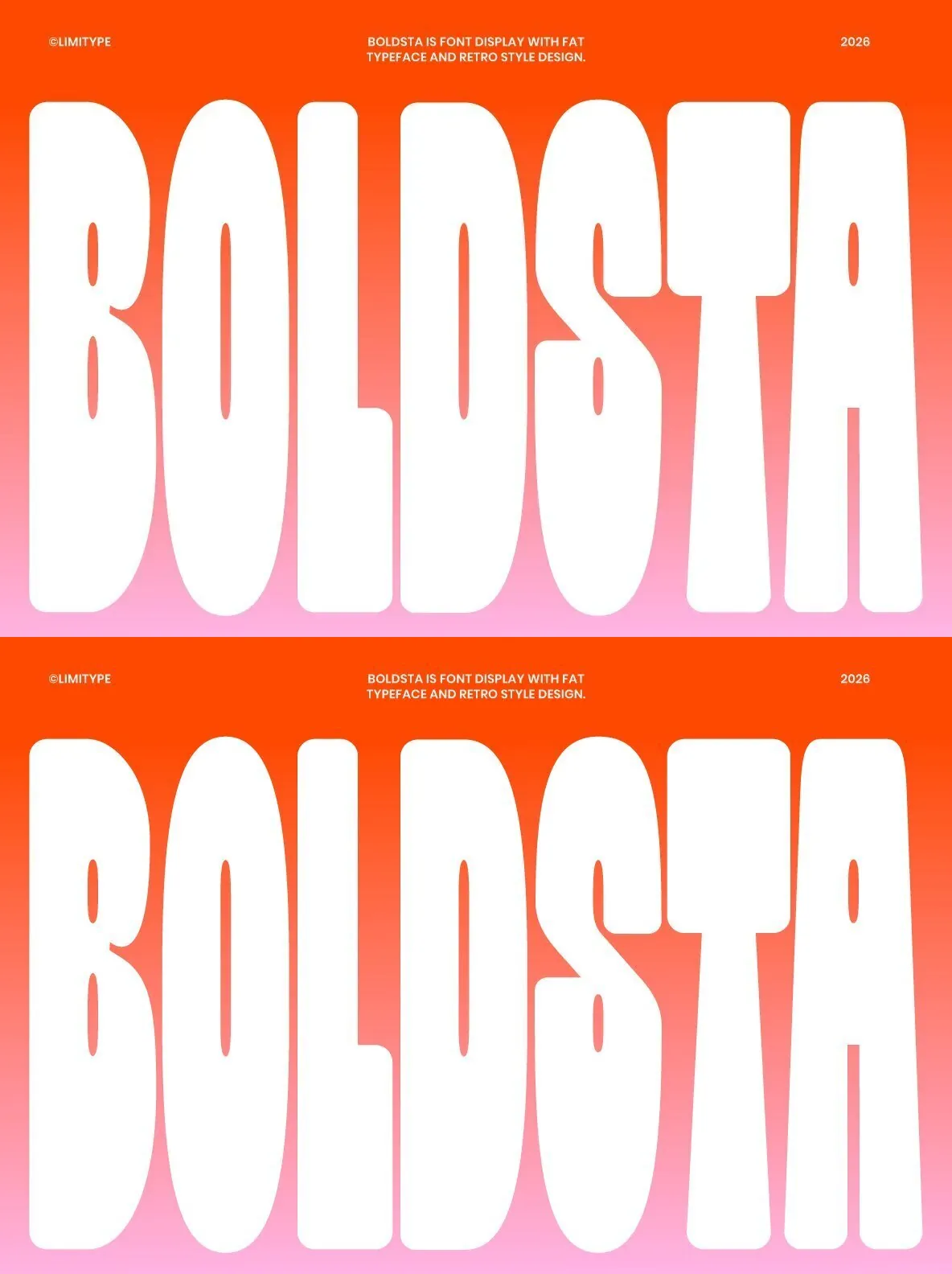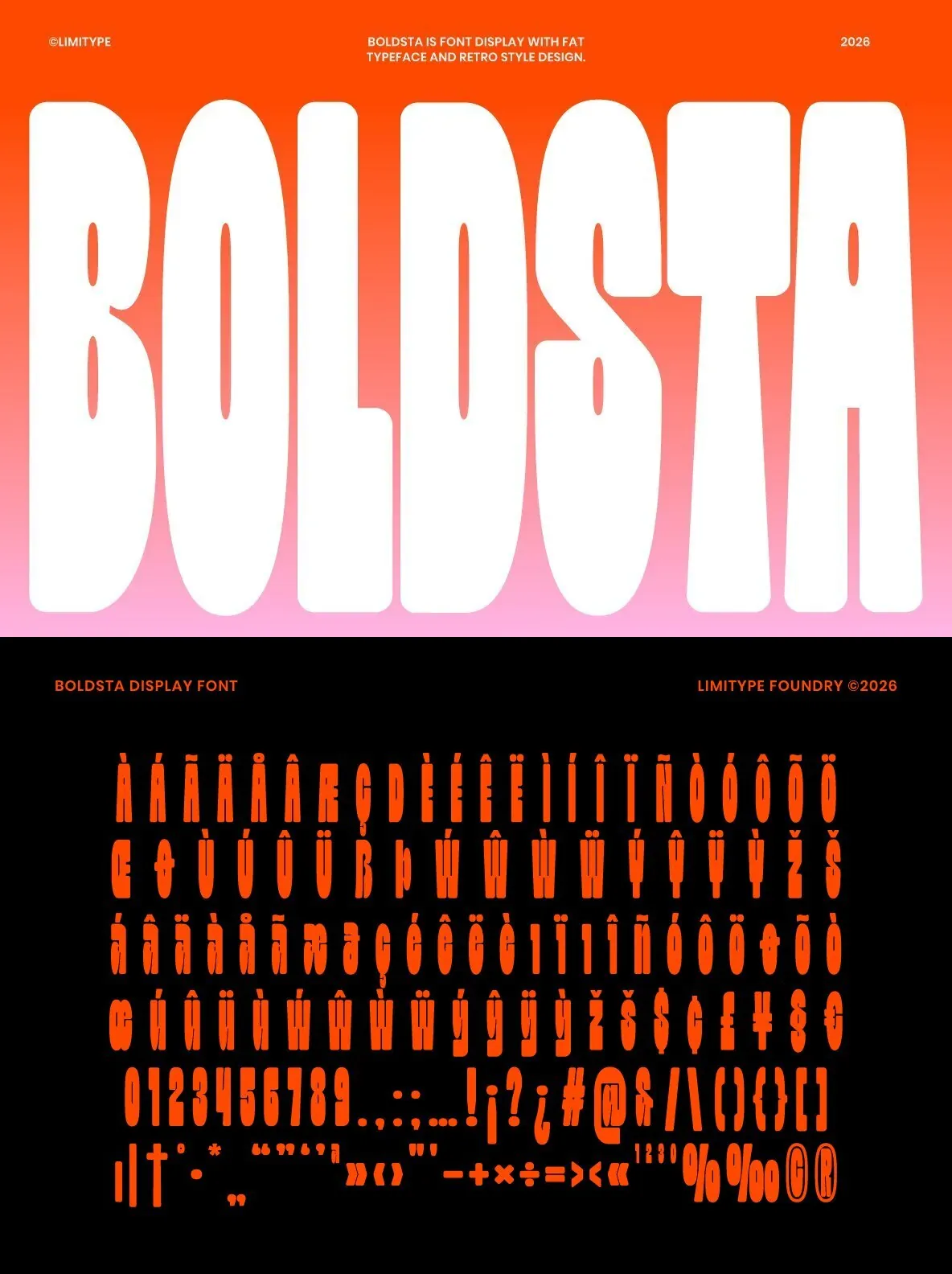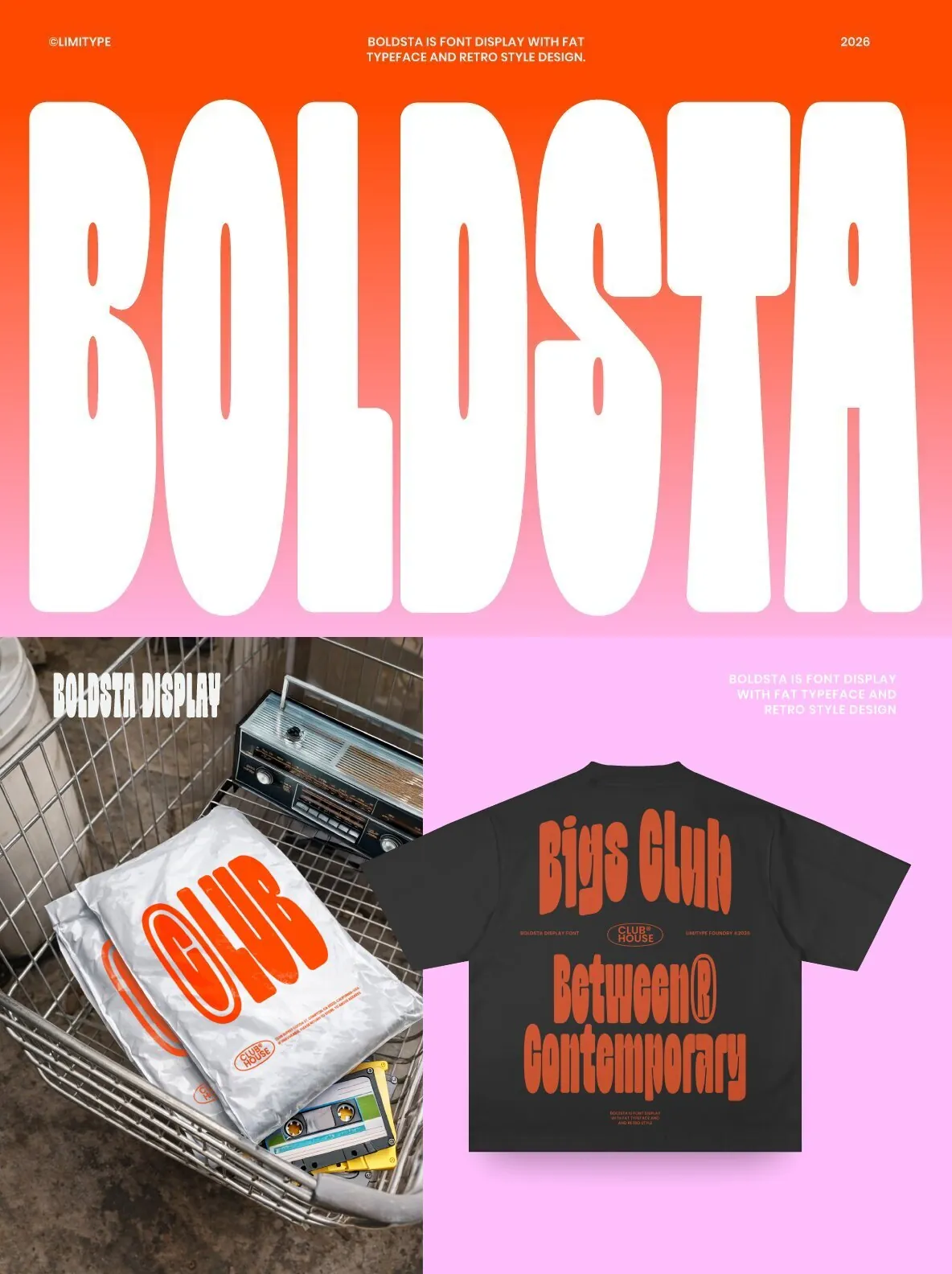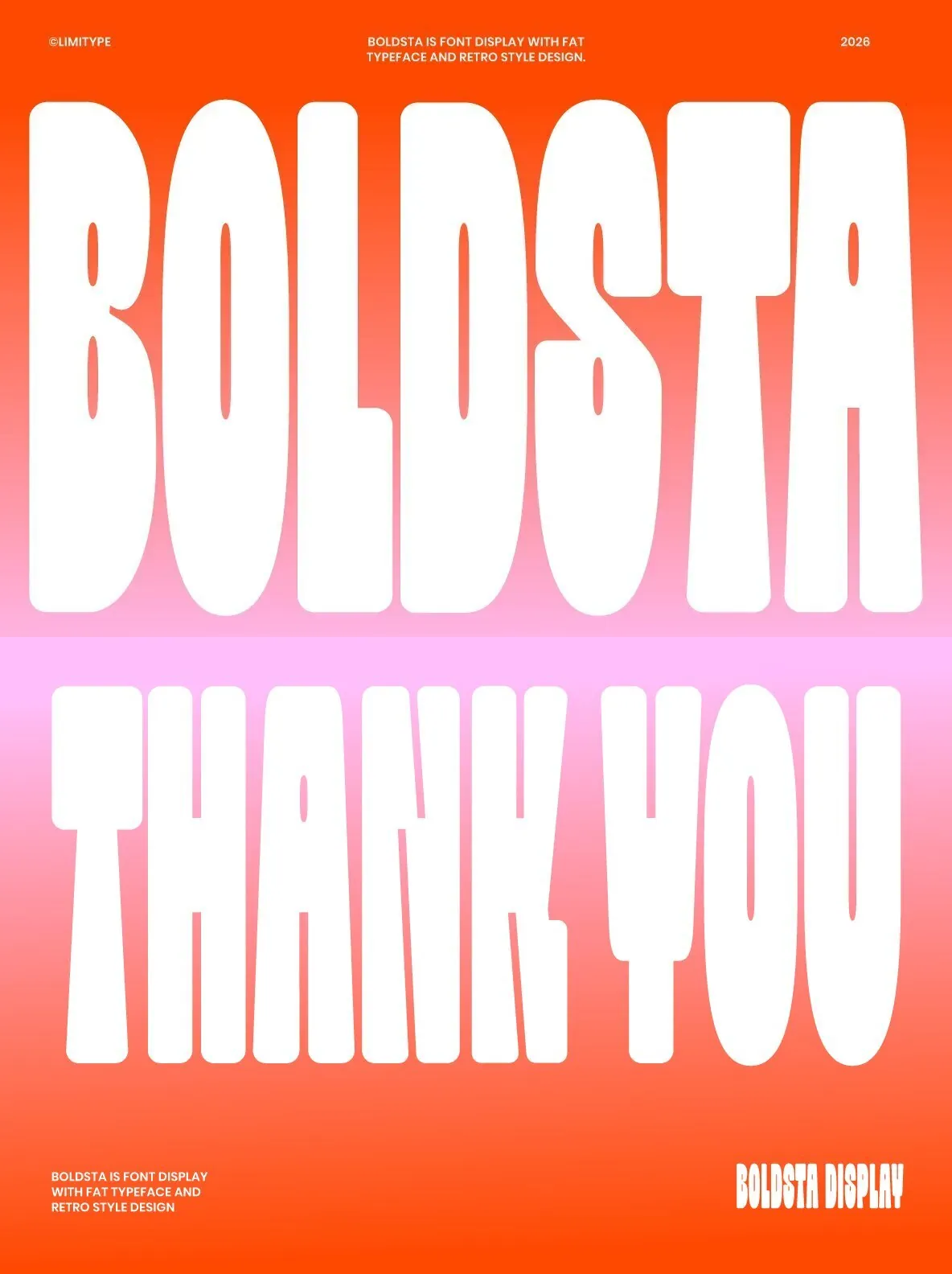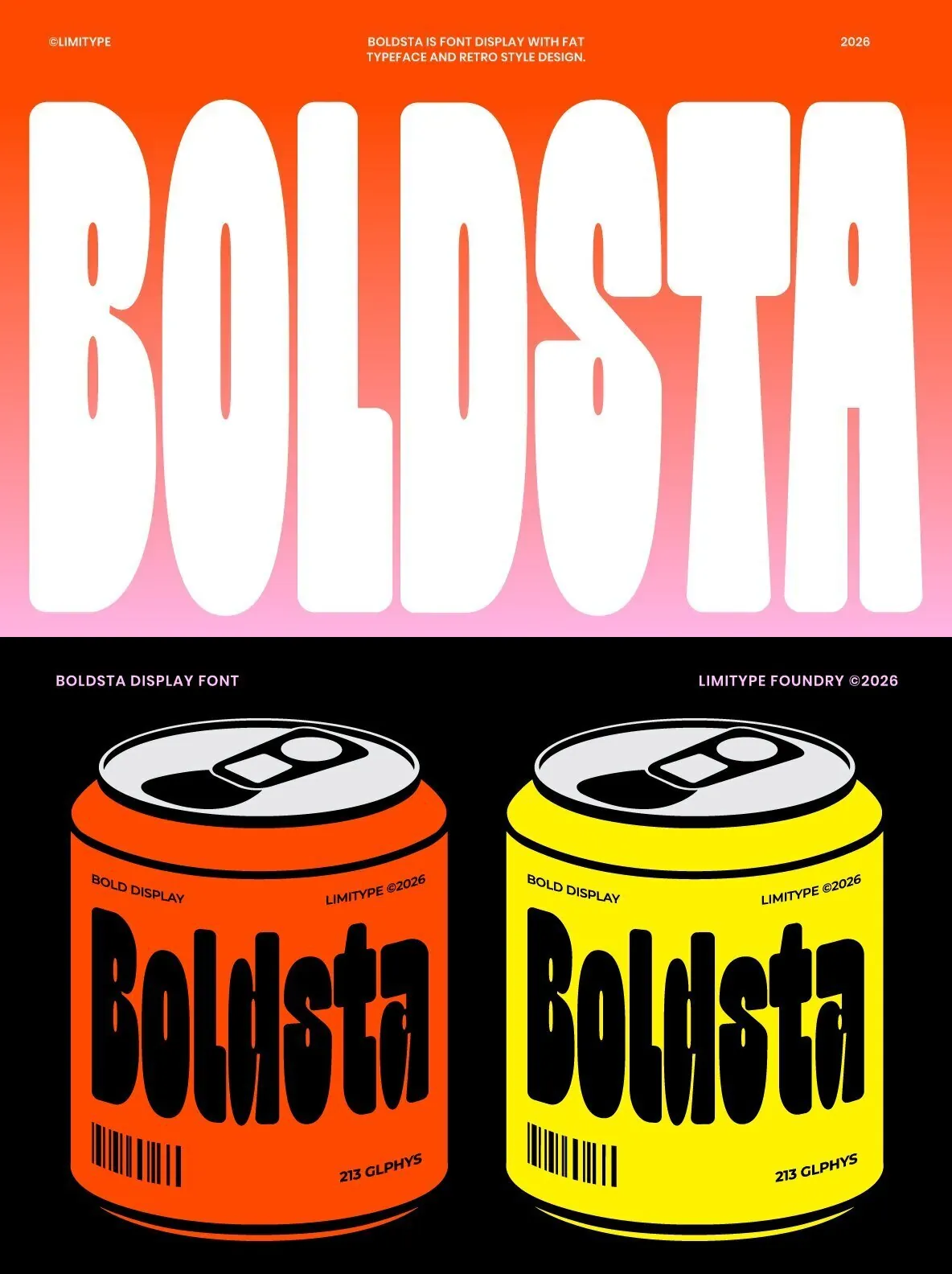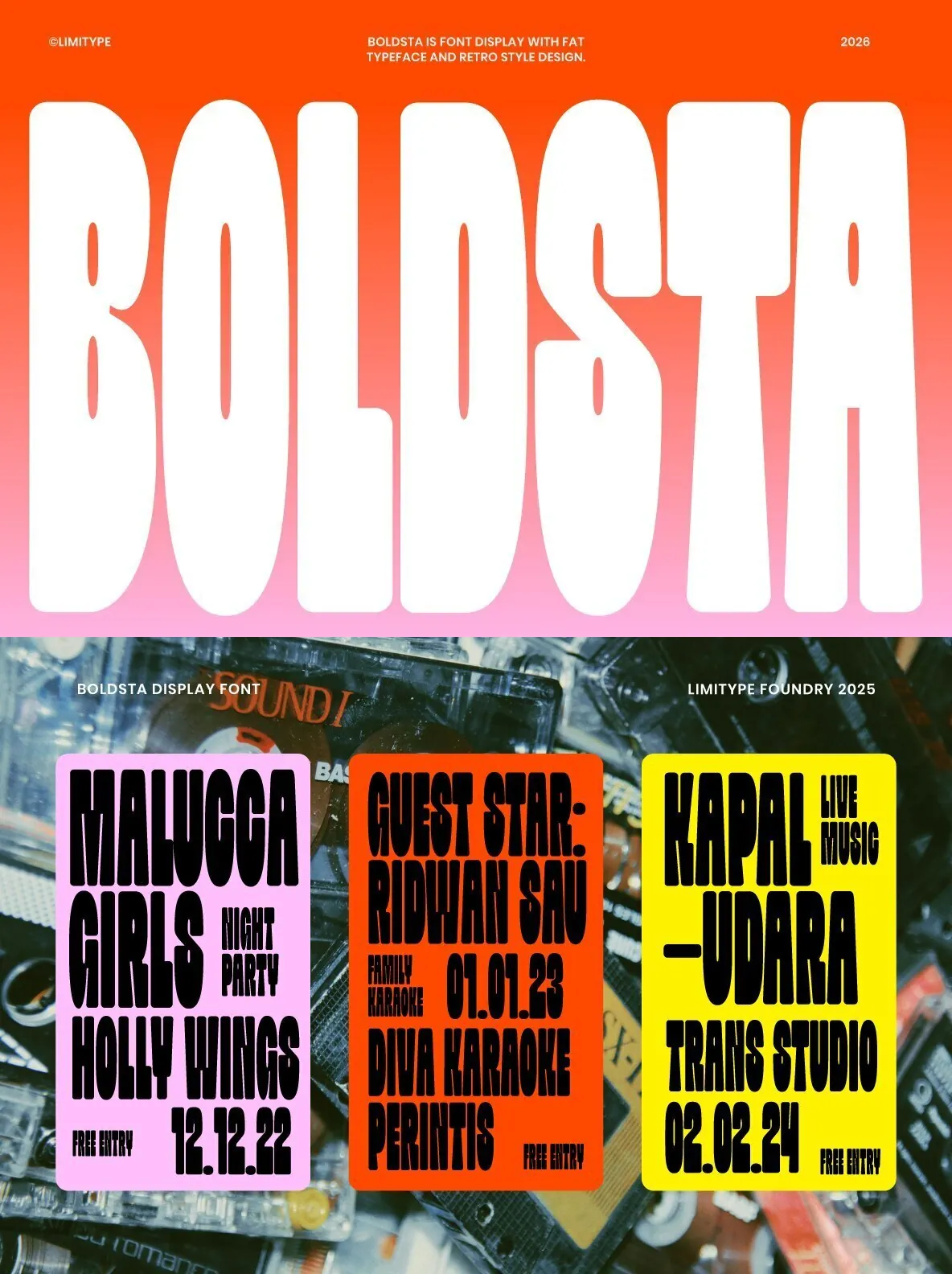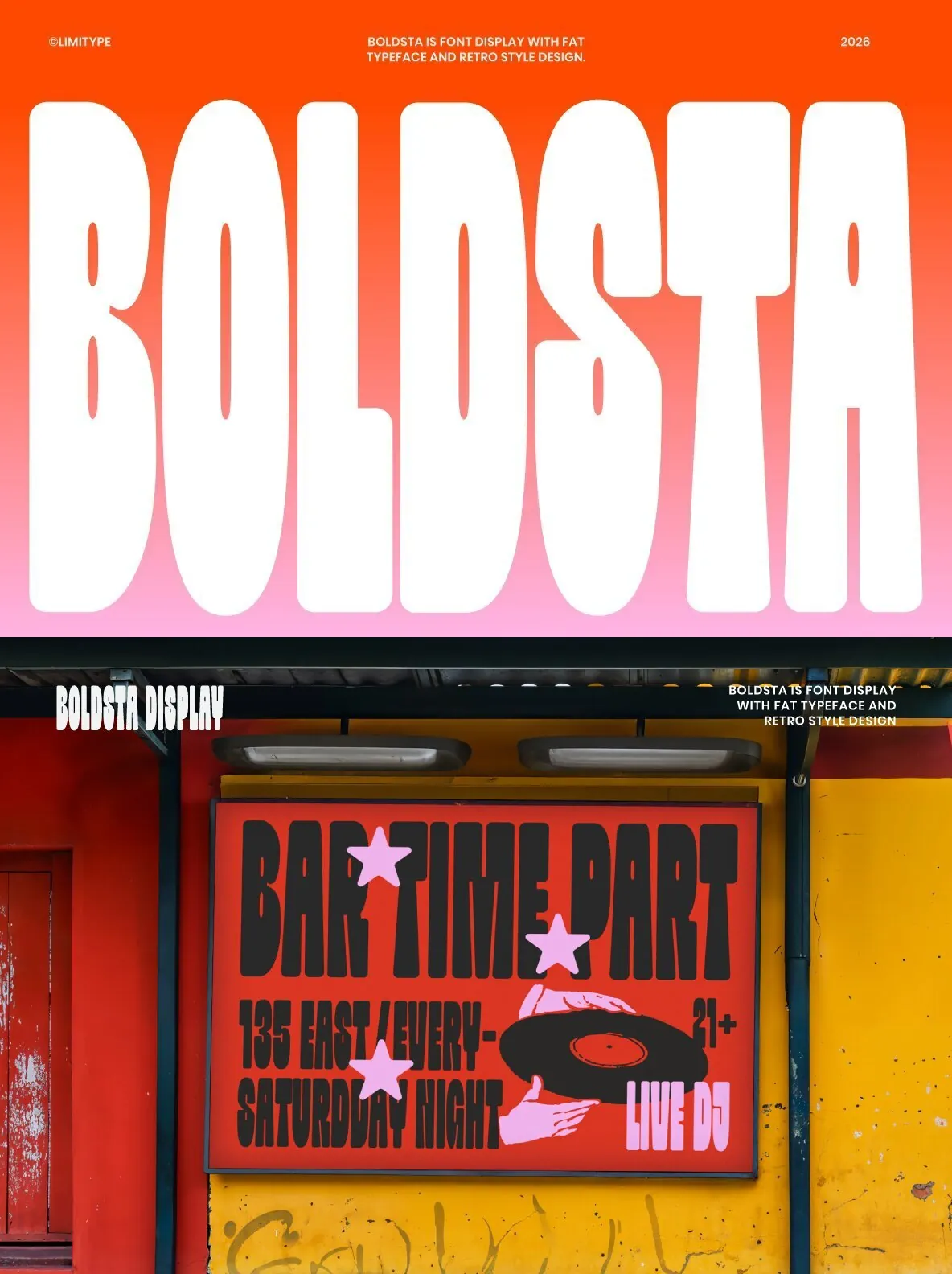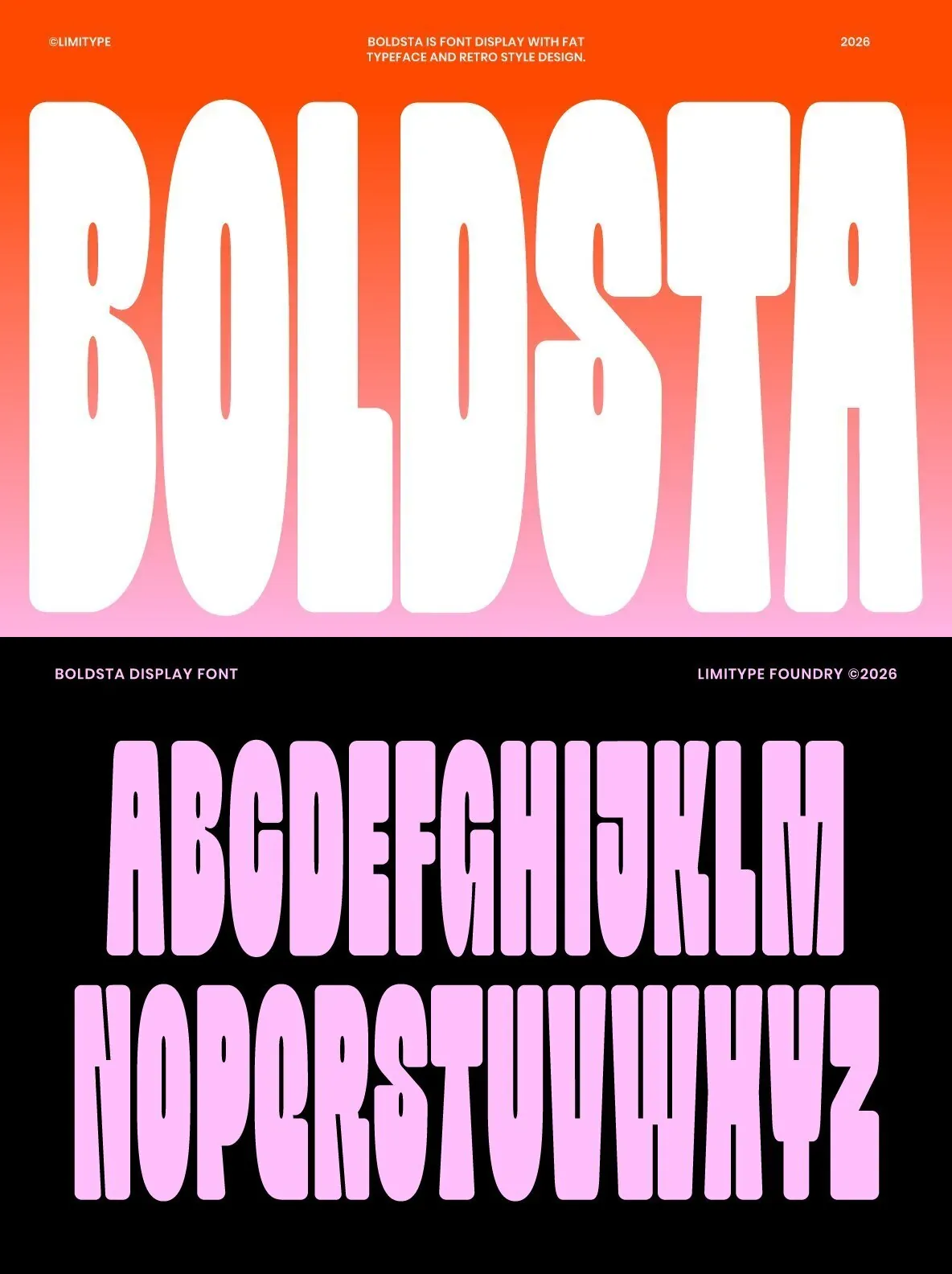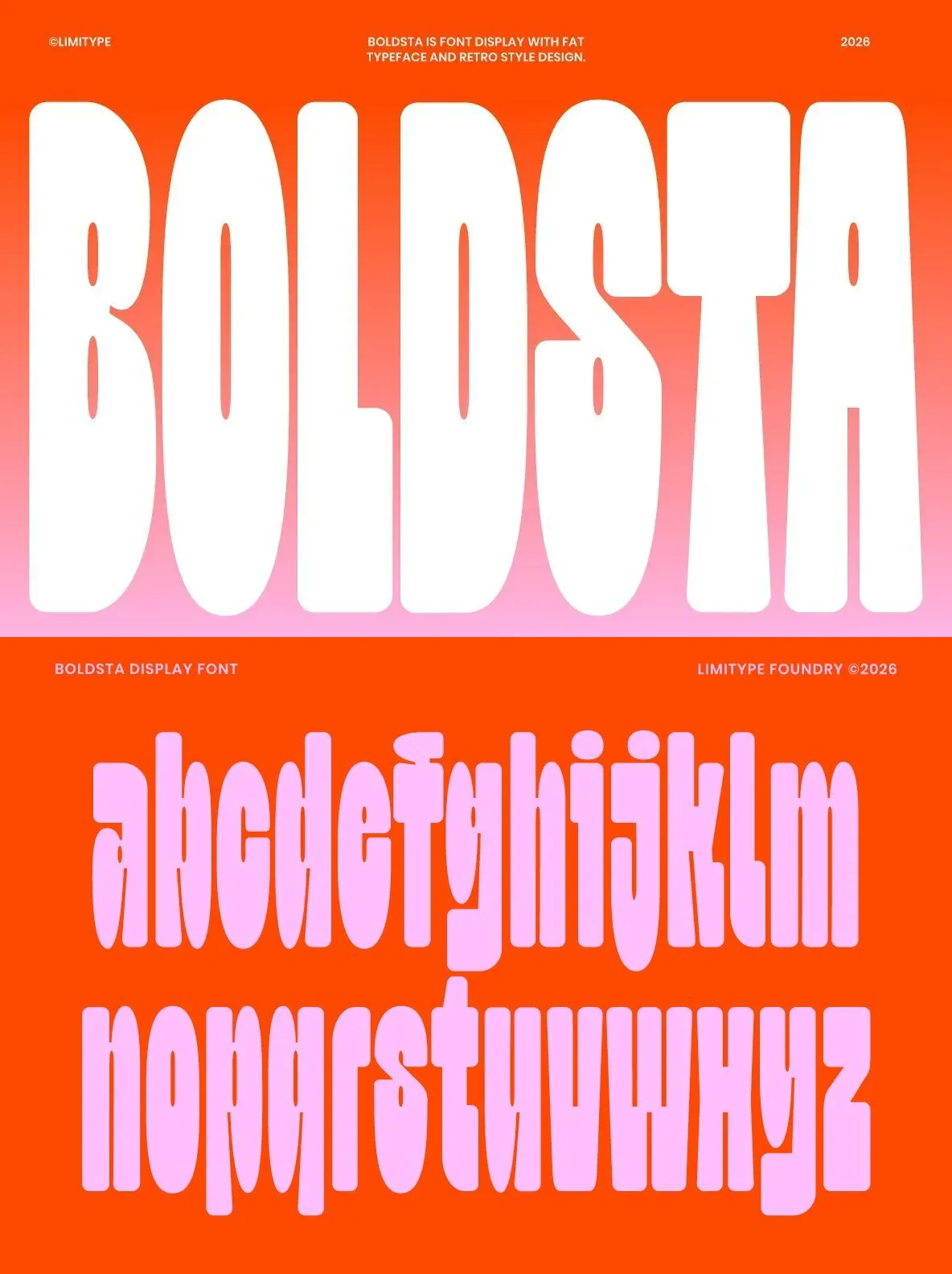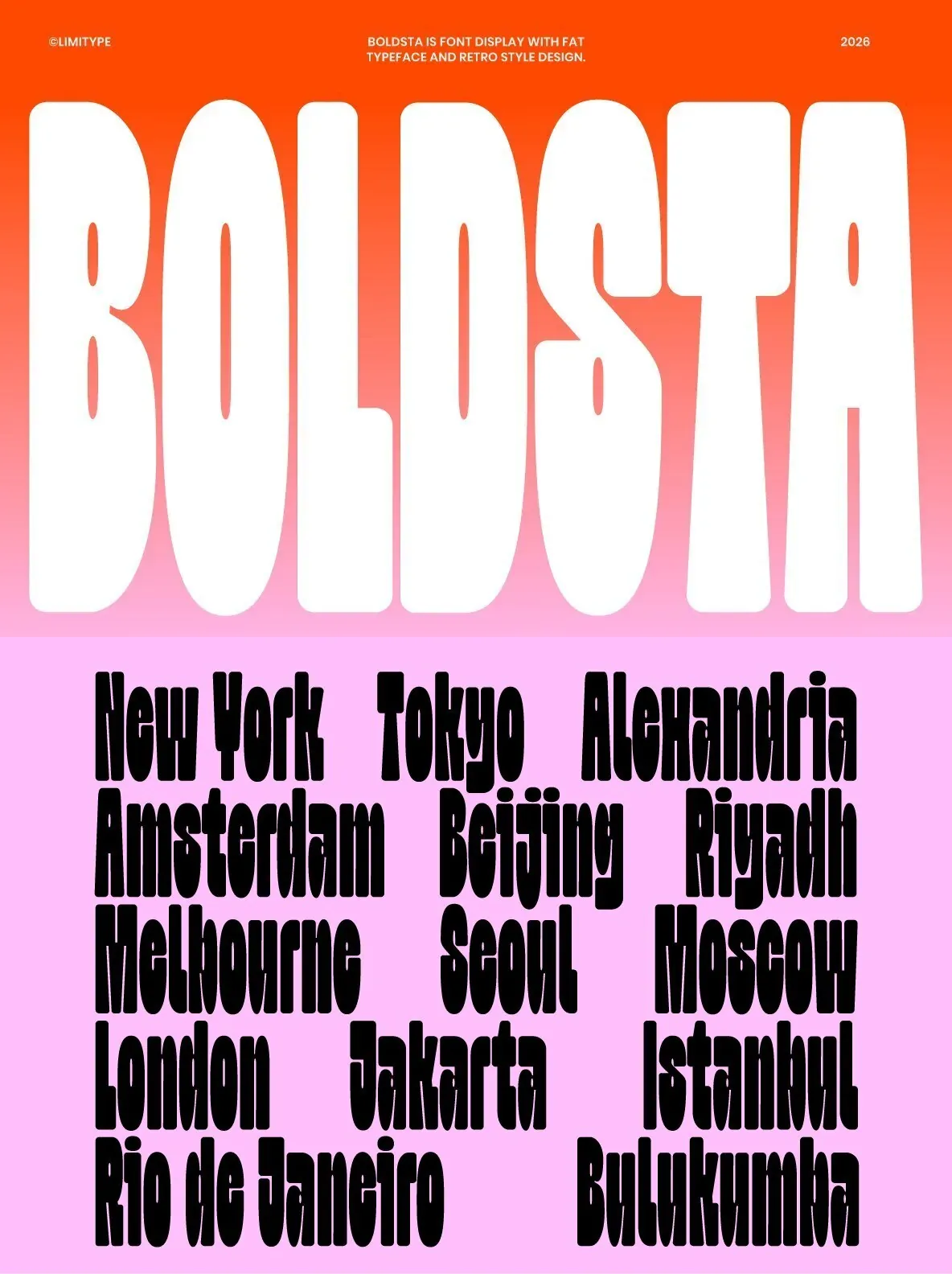
Boldsta Font
Boldsta Condensed — Retro Impact, Tight Fit
Boldsta Condensed is a retro-style display font with narrow proportions and a bold weight. It’s built to deliver a strong, impactful presence where space is limited but character matters. The condensed width keeps layouts efficient, while the heavy strokes hold their ground in large-format typography.
Inktrap details are precisely applied at stroke intersections to maintain consistent letterforms. The mix of retro energy with a modern structure creates visuals that feel stable, clean, and high impact across a range of sizes and reproduction methods.
Use Boldsta Condensed for headlines, logotypes, posters, editorial design, packaging, and branding applications that call for a bold, efficient, and professional visual identity.